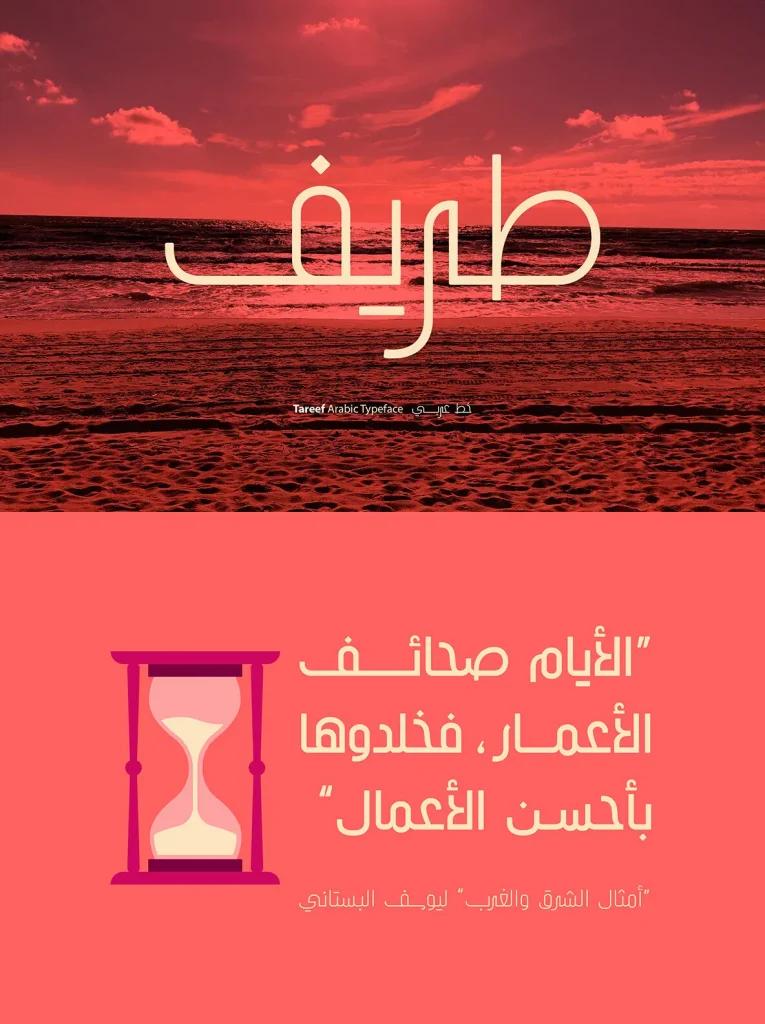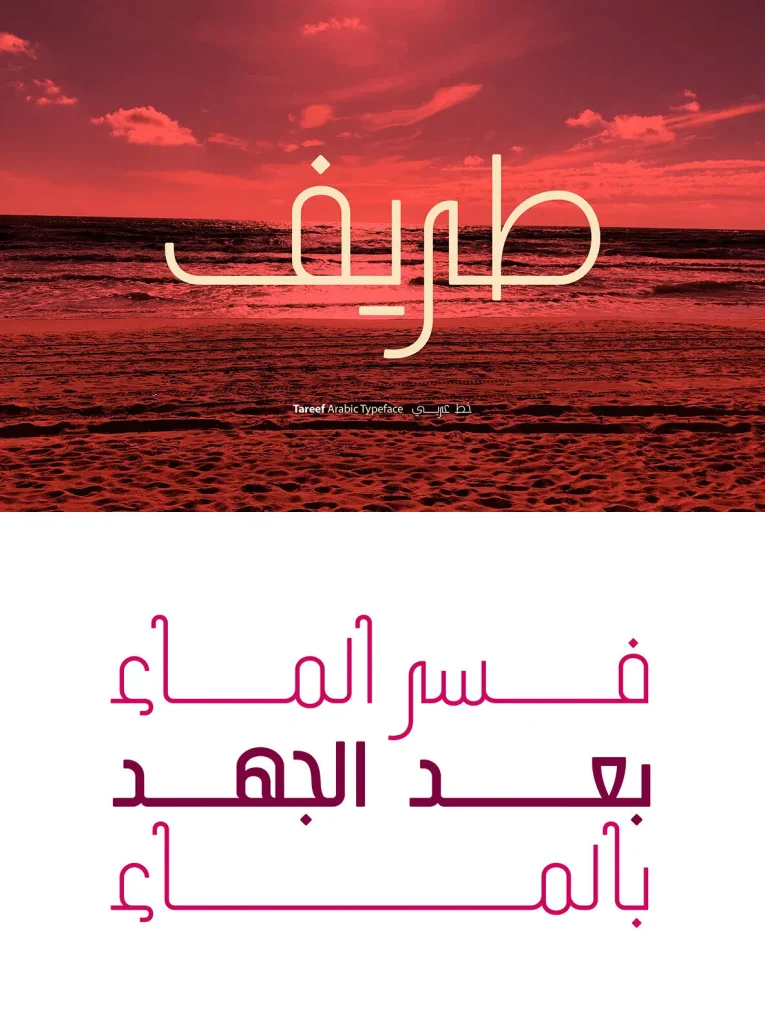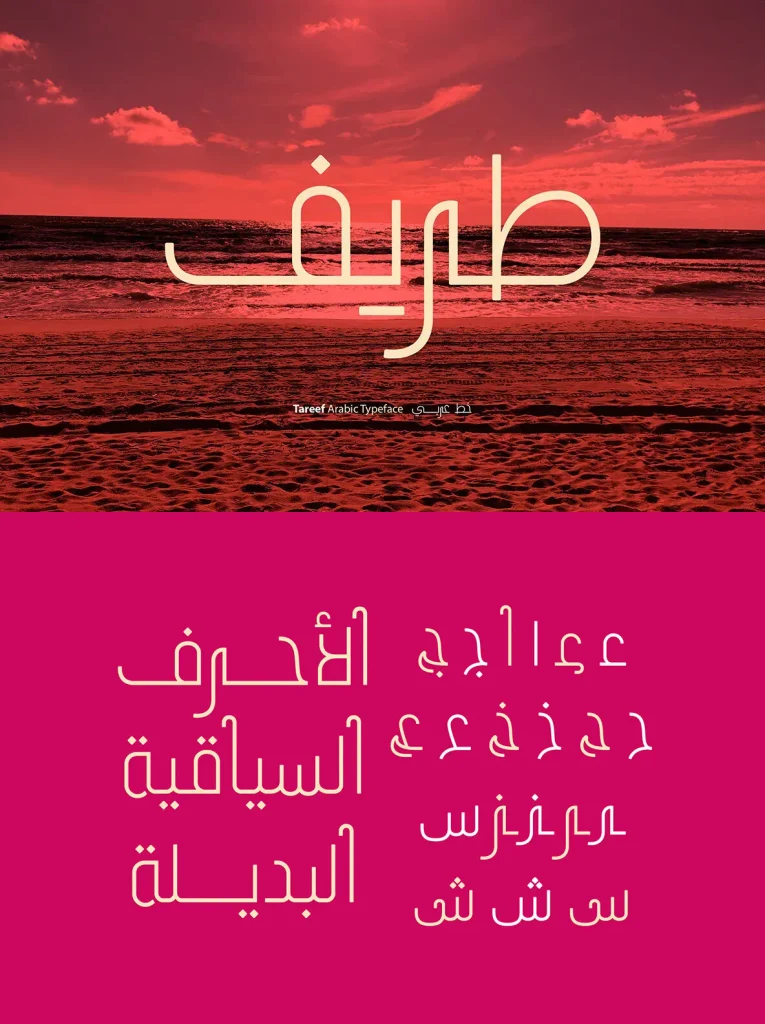
Tareef — Quaint Arabic Forms
Tareef takes its name from the Arabic word meaning quaint. It is a modern Arabic typeface with contemporary letterform design, made for clear and expressive use across current visual communication. Its forms suit projects that need an Arabic font with a fresh, composed voice.
The Tareef typeface works across a wide range of applications, including web design, print, and mobile interfaces. It includes two styles in two weights, Regular and Bold, giving designers practical range for hierarchy and emphasis. An additional stylistic set is also included for creative display purposes, adding more character when a project calls for a distinctive Arabic typographic presence.